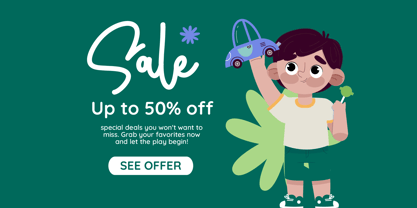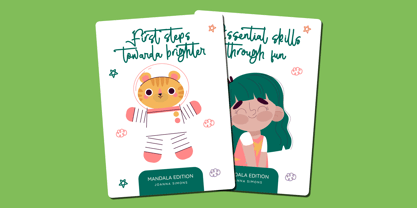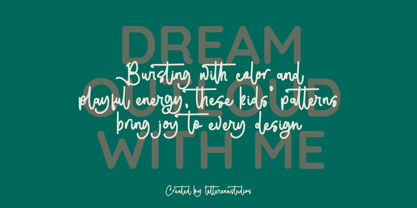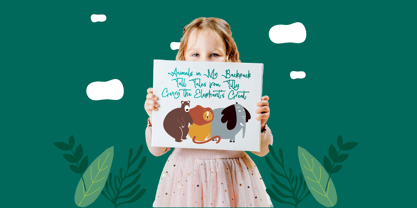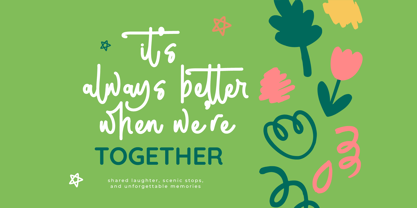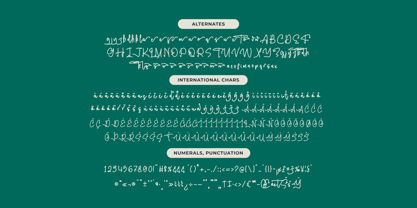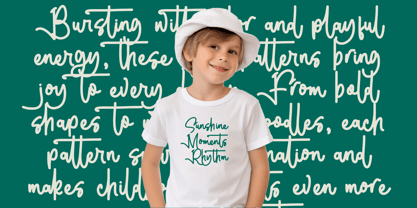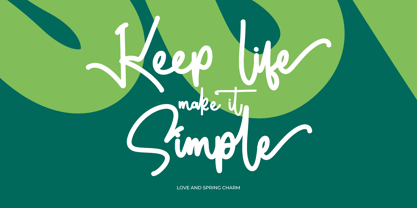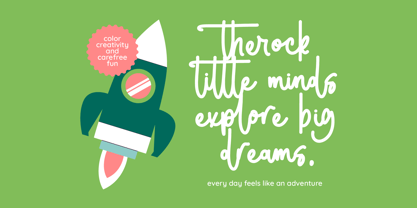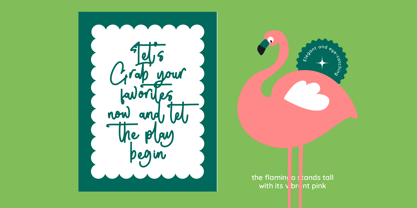
Kids Journey
by Letterena Studios
The Kids Journey Font Family was designed by Heru Utama Putra and published by Letterena Studios. Kids Journey contains 2 styles and family package options. More about this family
Kids Journey - Bold Handwritten Font Type , from Letterena, is a Luxury Script font, suitable for any projects such as: logos, branding projects, homeware designs, product packaging, mugs, quotes, posters, shopping bags, t-shirts, book covers, name card, invitation cards, greeting cards, label, photography, watermark, special events, and all your other luxury and beautiful projects that need a Luxury Script taste.
Foundry: Letterena Studios